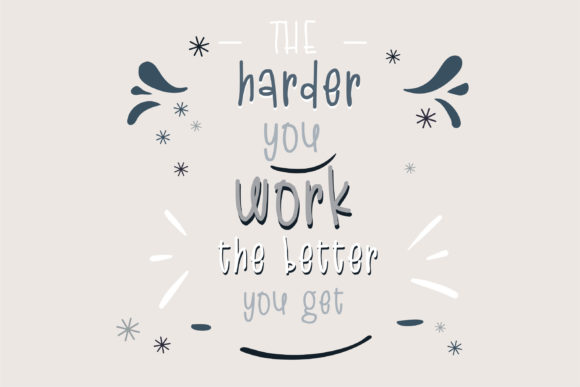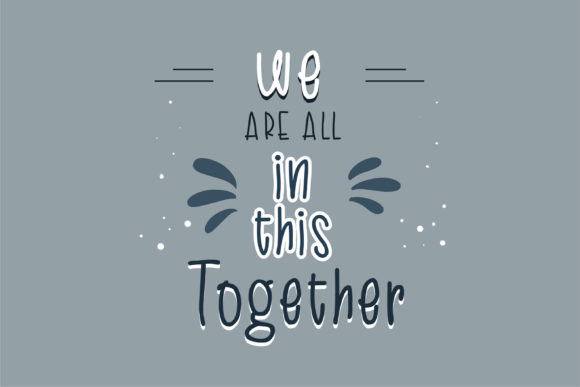
Great Grandpa Font
db-ku.com - Script & Handwritten -- Great Grandpa is a simple, hand-written font that has wide spacing throughout. It has beautiful and well balanced characters and as a result, it matches a wide pool of designs. Add it to your most creative ideas and notice how it makes them come alive!